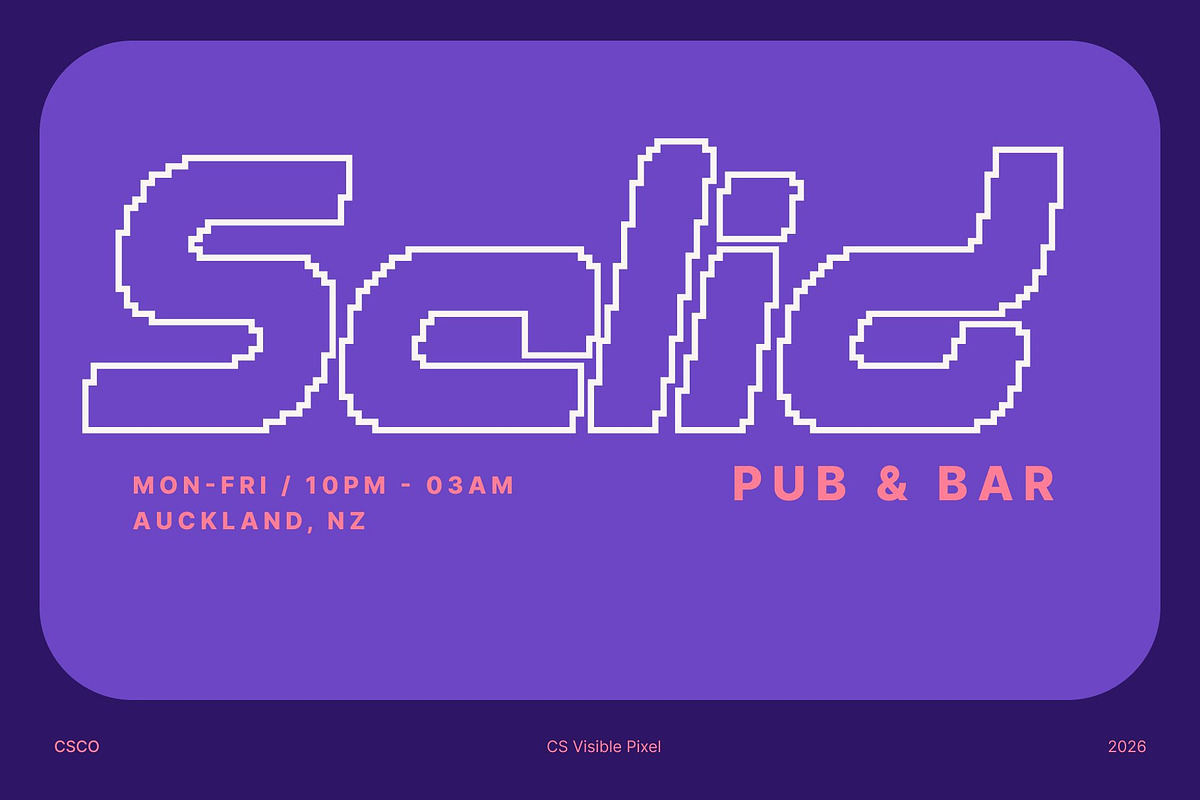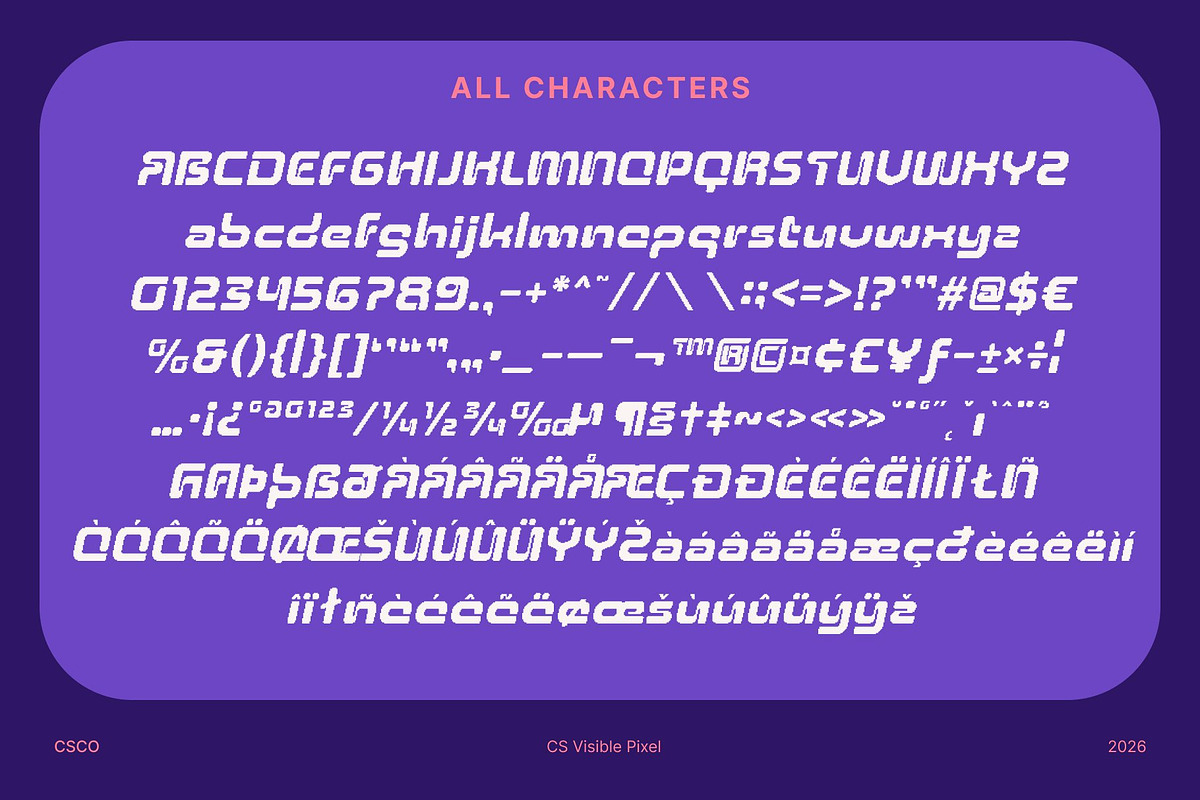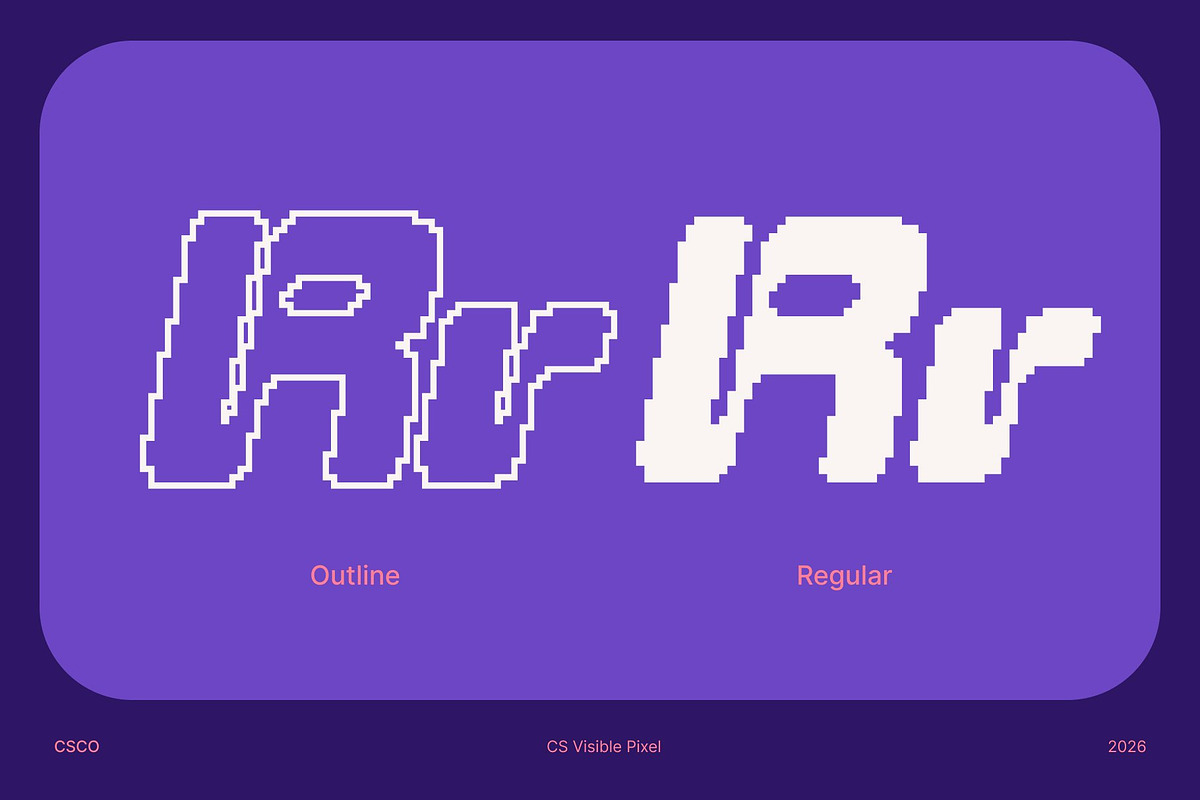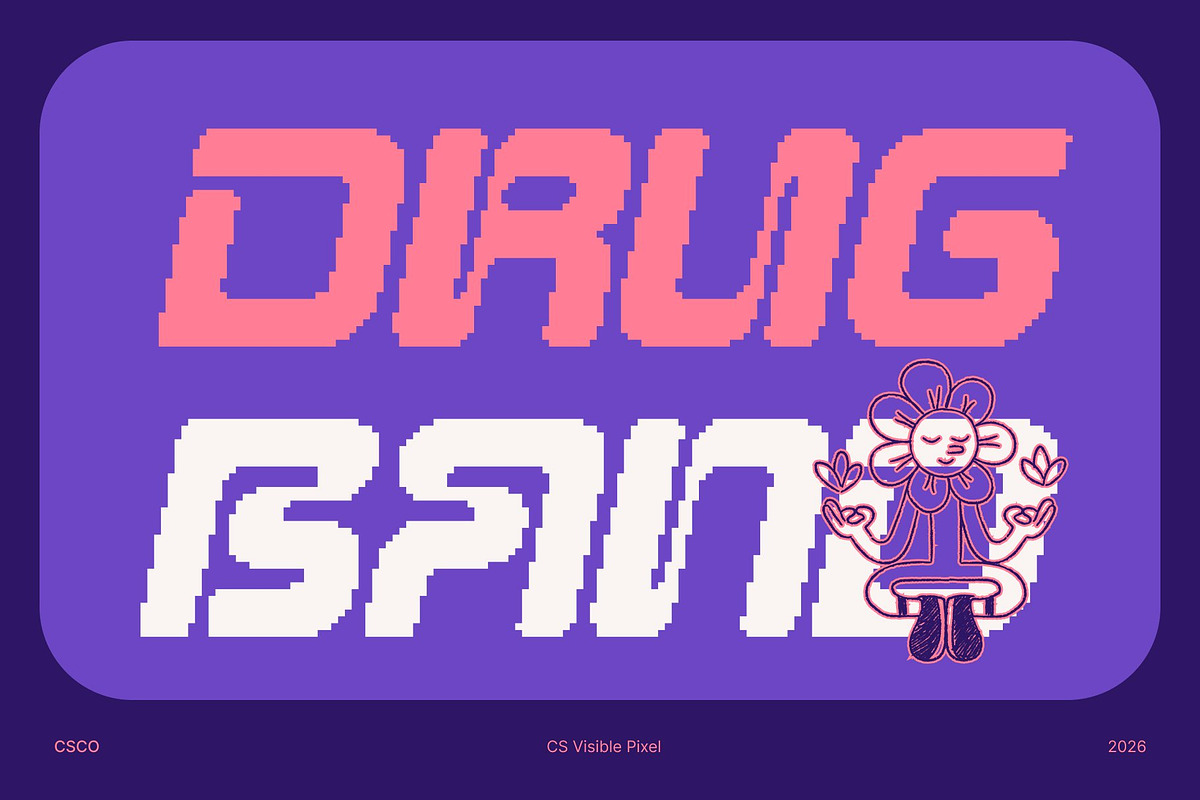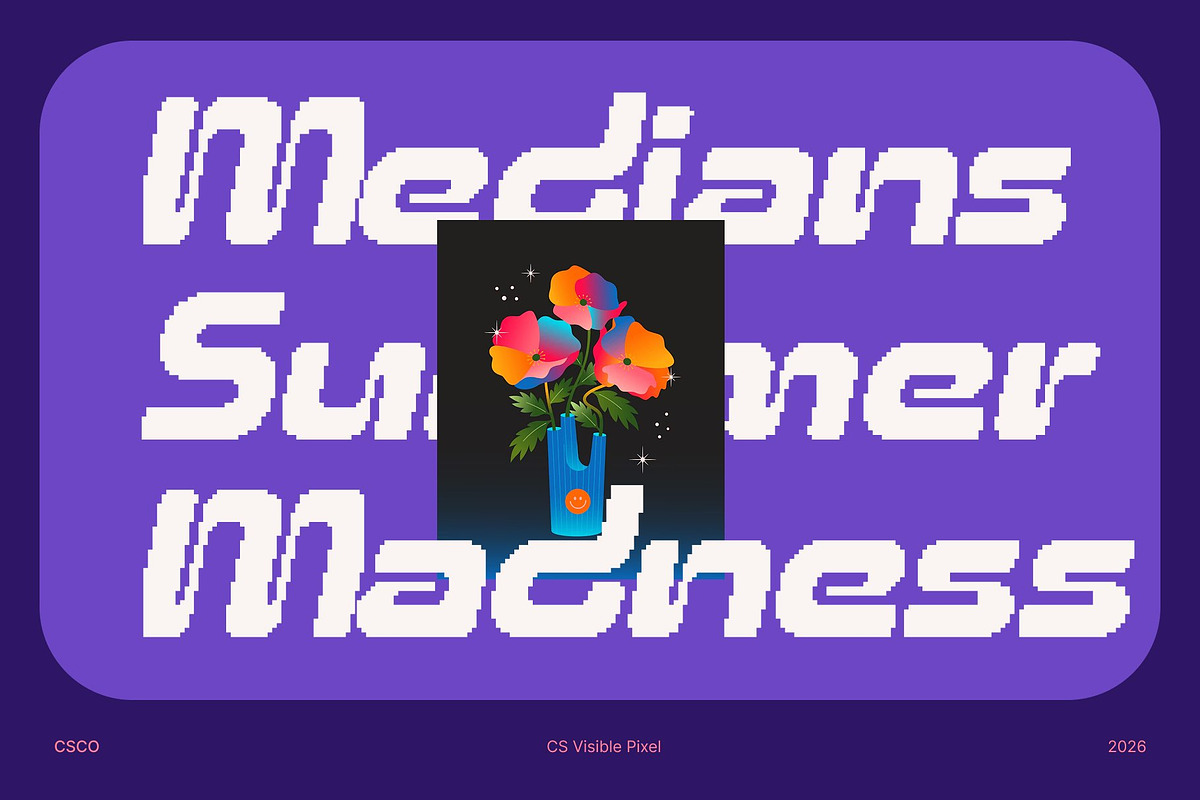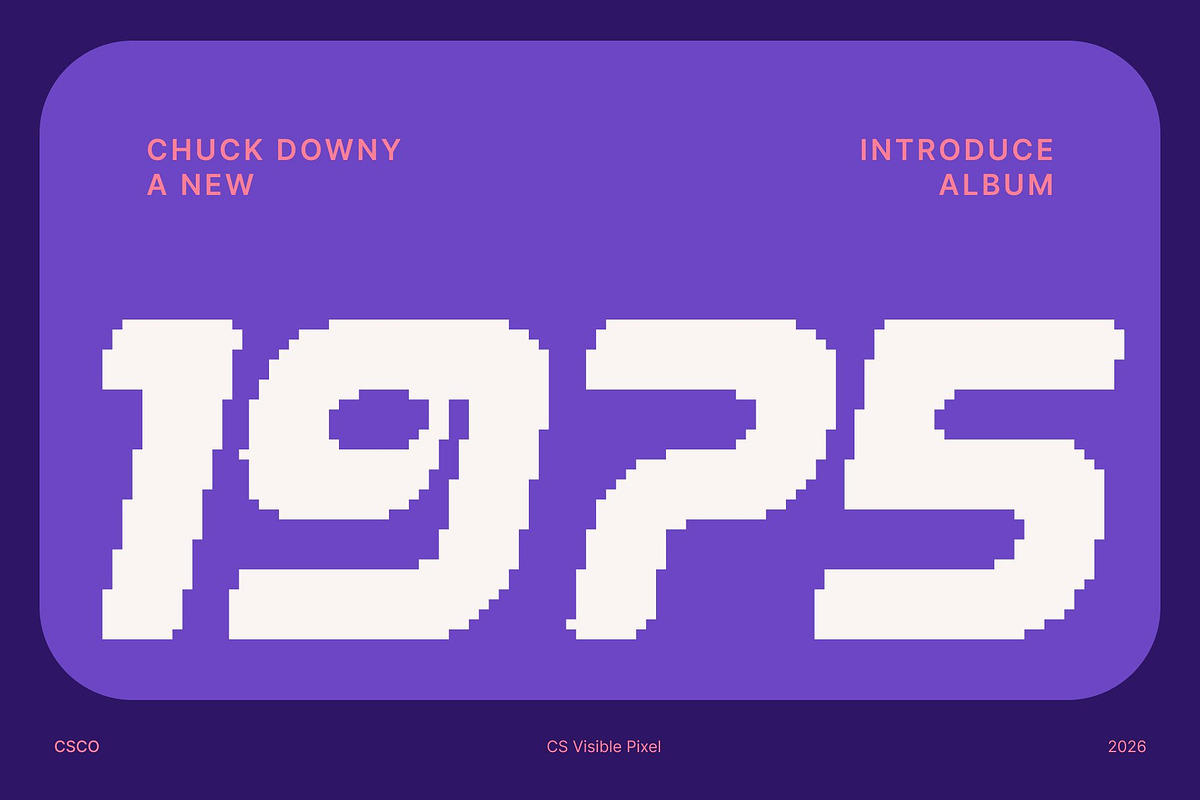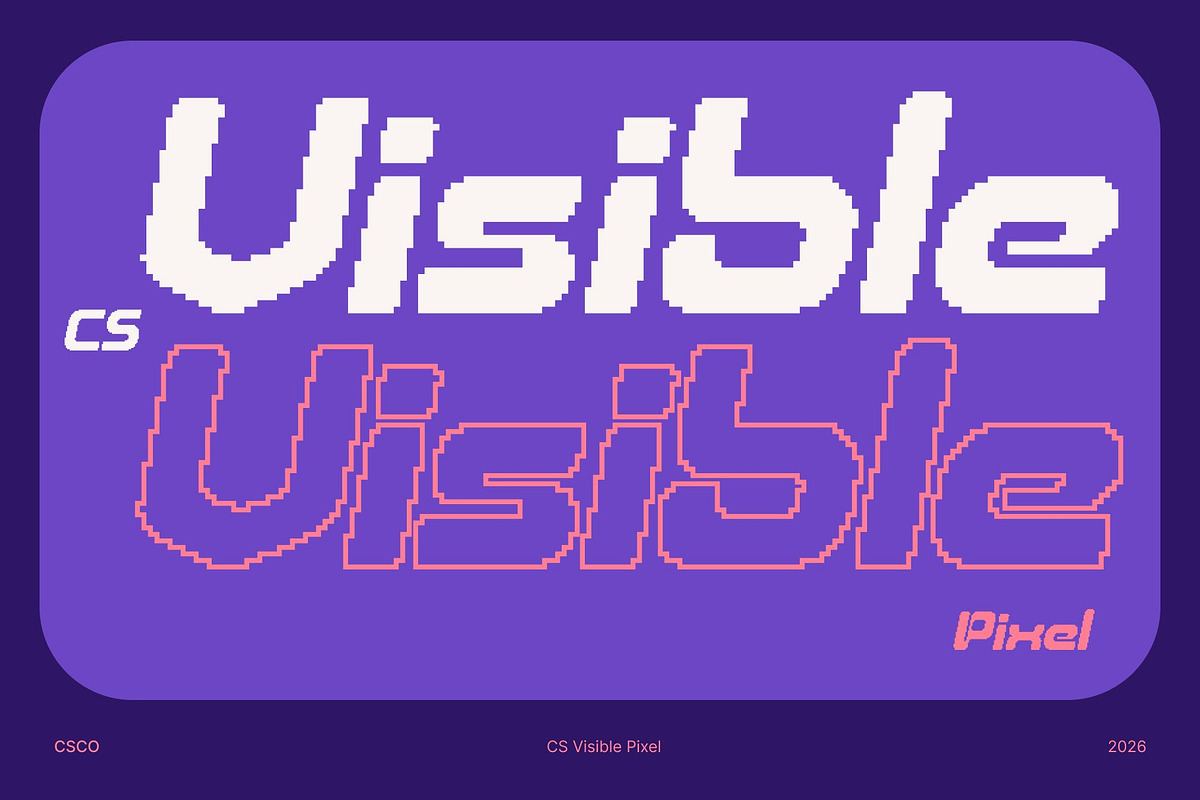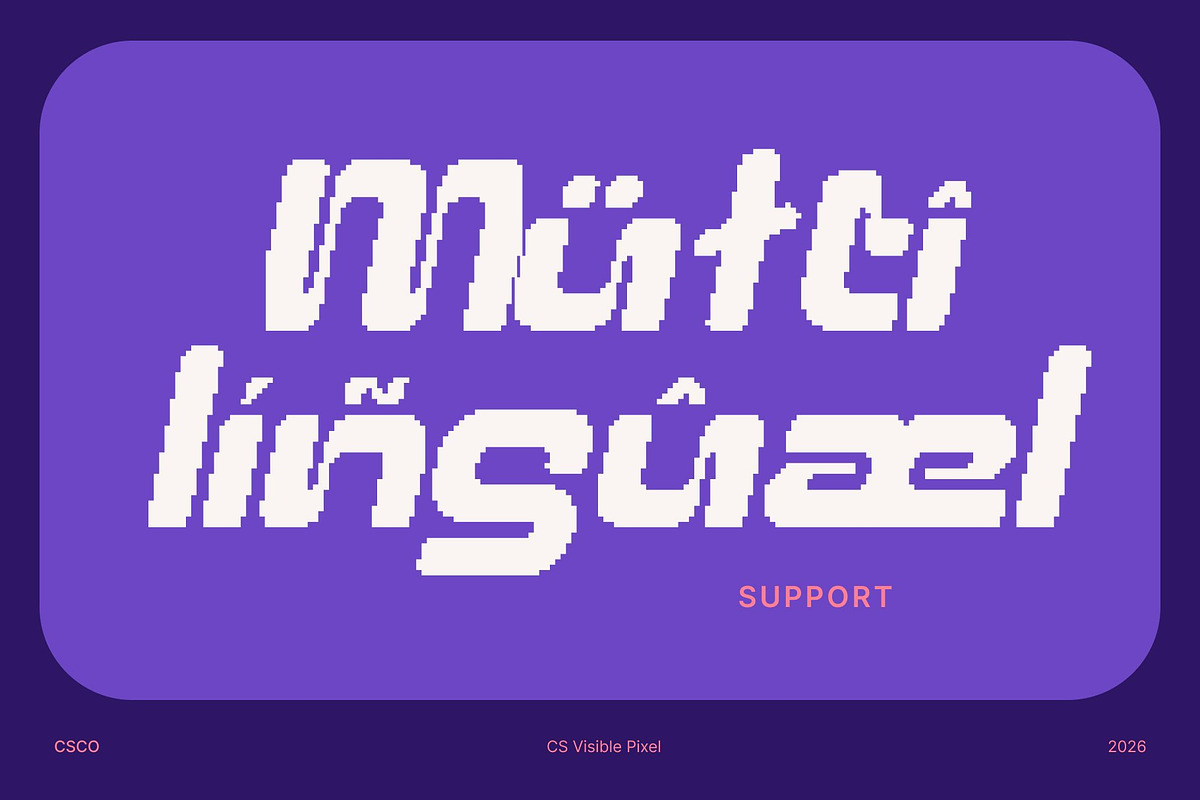
CS Visible Pixel
CS Visible Pixel – Techno Sans Serif with Futuristic Precision
Modern Techno Sans Serif with Pixel Structure This is a techno-inspired sans serif font built with sharp pixel construction and sleek geometric precision. Designed to embody strength, clarity, and innovation, it delivers a bold futuristic presence that instantly commands attention. The structured pixel detailing reinforces its digital DNA, making it ideal for modern tech-driven visuals and forward-thinking brands.
Futuristic Geometry with Digital Flow The font combines clean industrial lines with subtle pixel edges, creating a balance between fluid movement and structured precision. Smooth curves meet modular pixel forms, resulting in a dynamic rhythm that feels both mechanical and progressive. This fusion enhances its high-tech aesthetic while keeping the overall look refined and contemporary.
Engineered for Clarity and Visual Power With bold proportions and well-defined shapes, this font ensures excellent readability at display sizes. Its consistent geometry and digital-inspired construction give it a commanding, professional tone perfect for impactful headlines, logos, and statement typography.
Versatile for Tech, Gaming, and Digital Branding From futuristic branding and gaming graphics to posters, UI concepts, and digital advertising, this font adapts effortlessly across modern applications. This font brings confidence, innovation, and unmistakable pixel precision to any project that demands a cutting-edge, technology-forward identity.
- CS Visible Pixel Regular
- CS Visible Pixel Outline